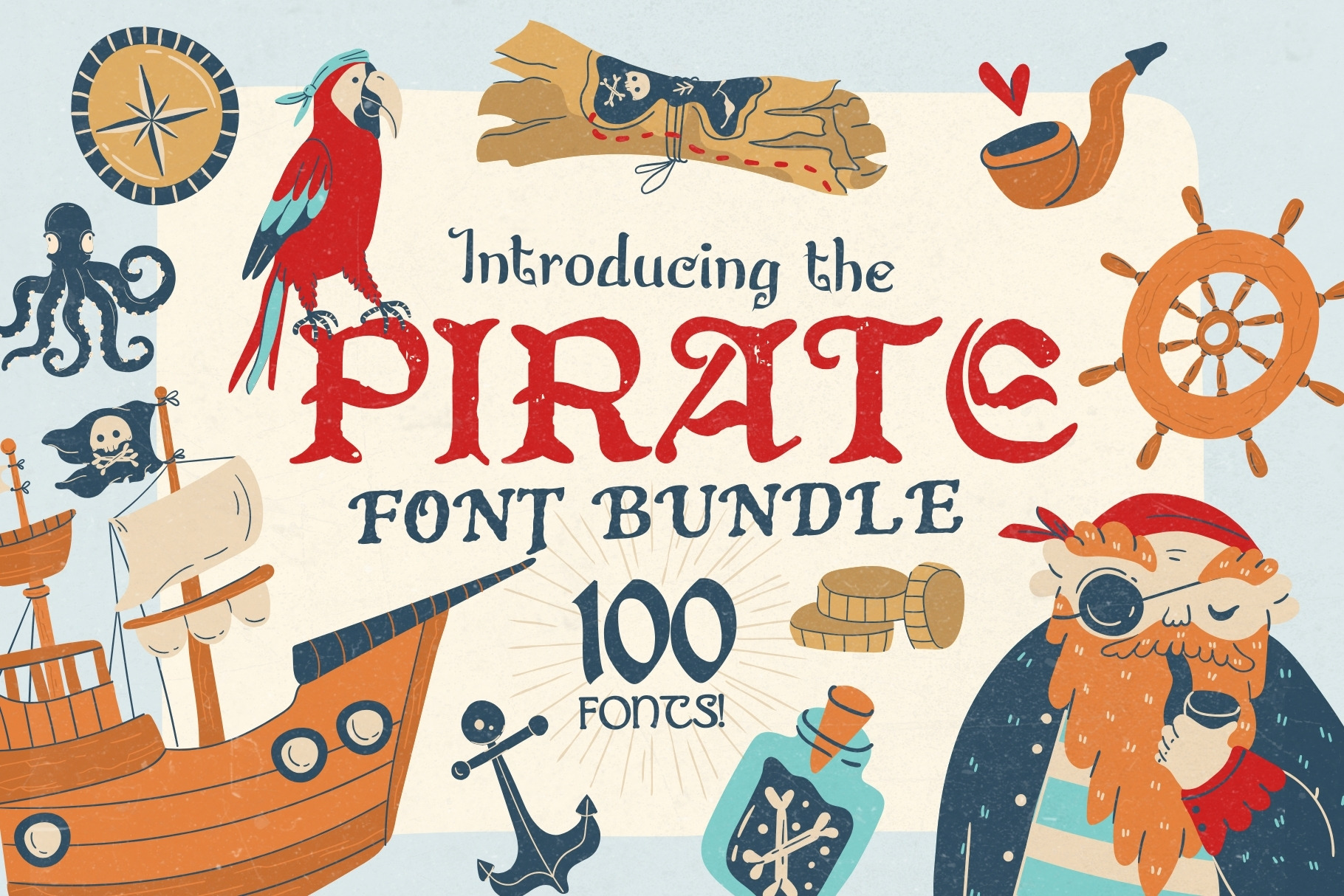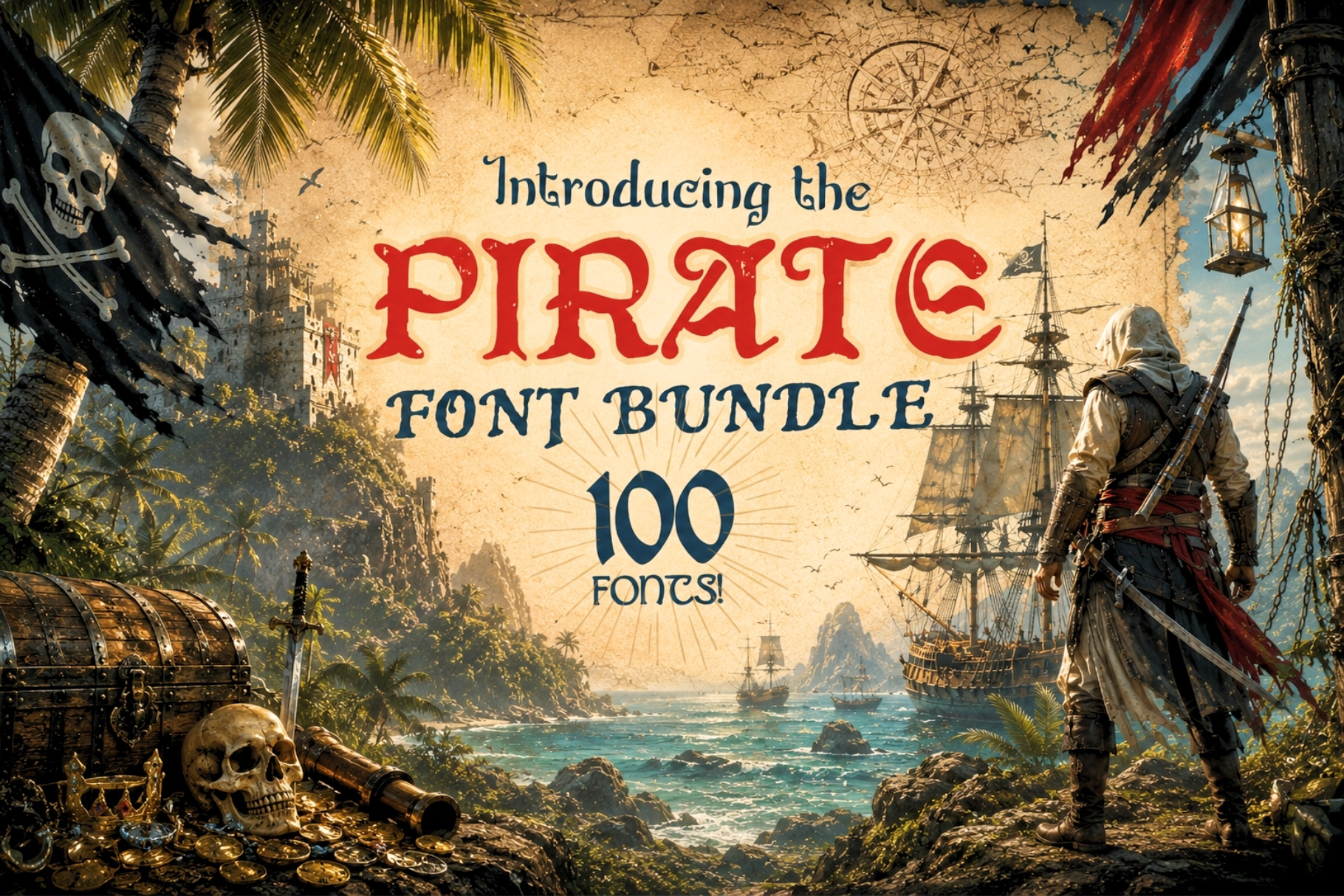
Pirate Font Bundle - 100 Fonts!
Set sail for bold, legendary design 🗺️⚓
The Pirate Font Bundle is a massive collection of 100 beautifully crafted pirate-inspired fonts, designed to capture the spirit of the high seas — rugged, adventurous, mysterious, and timeless.
From weathered lettering and vintage nautical styles to bold display fonts and old-world serif designs, this bundle gives you everything you need to create authentic pirate, nautical, maritime, and adventure-themed designs — all in one powerful download.
No more hunting for the “right” pirate font. This bundle saves you hours of time and delivers incredible value.
⚓ Perfect For Pirate & Nautical Designs
This bundle is ideal for:
Pirate-themed branding & logos
Posters & signage
Book covers & storytelling projects
Game titles & fantasy designs
Event graphics & party decor
Apparel, merch & print-on-demand
Social media & marketing visuals
Whether you’re designing something playful and fun or dark and legendary, these fonts cover the full pirate spectrum — from classic to gritty.
🧭 Why Designers Love This Bundle
Authentic pirate & nautical aesthetics
Wide variety of styles for maximum versatility
Works beautifully for digital & print
Perfect for beginners and professionals
A must-have for fantasy & adventure themes
If your project needs character, grit, and legendary pirate flair, this bundle delivers.